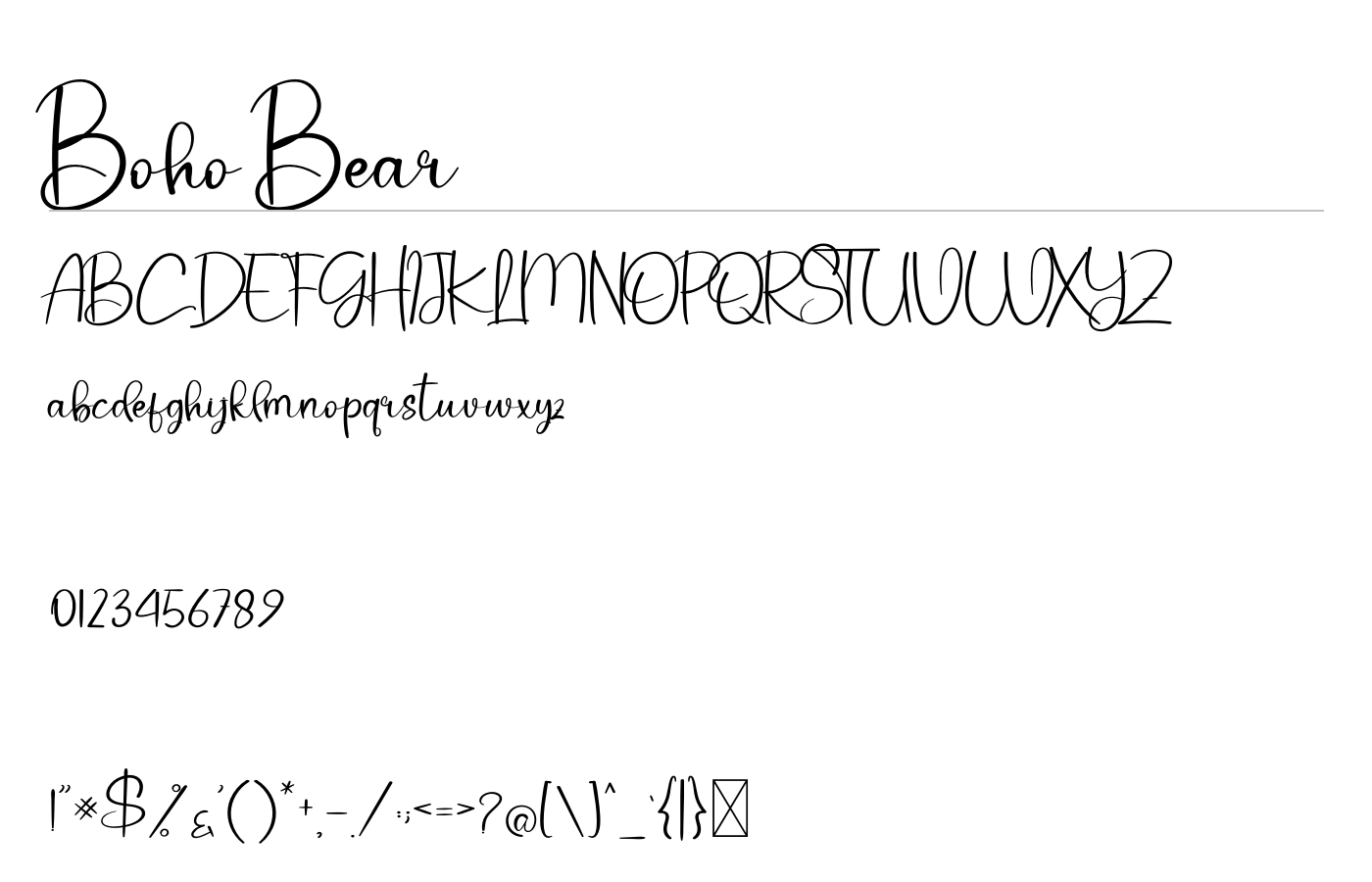
Boho Bear is a playful, lightweight script font characterized by its delicate, hand-drawn feel and whimsical loops, giving it a casual yet charming personality. Its tall, narrow letterforms with a mix of flowing uppercase and neat lowercase letters make it ideal for creative branding, invitations, and artistic projects where a friendly, personal touch is desired. This font works well in designs that aim to convey warmth and individuality while maintaining readability and style.
Boho Bear Font
About Boho Bear Font